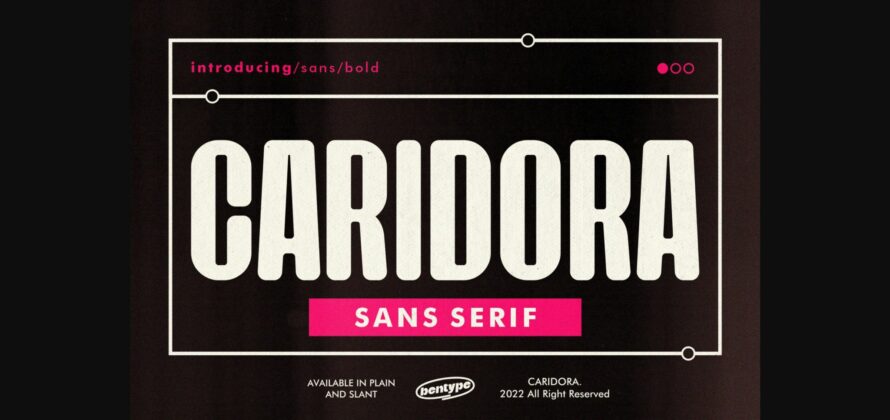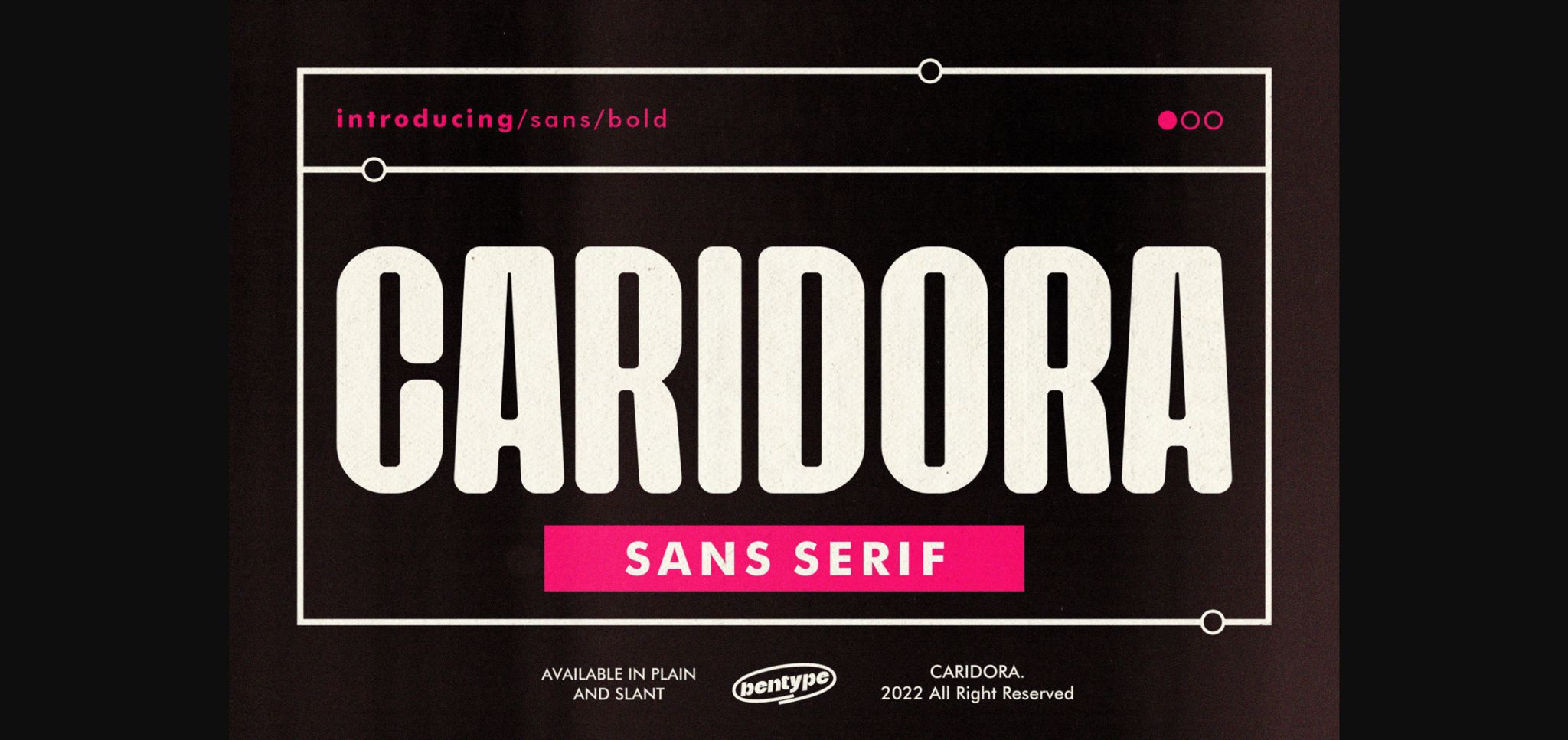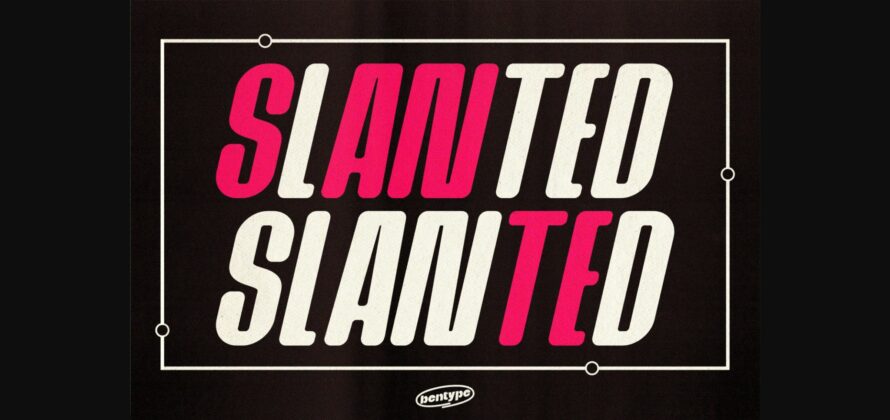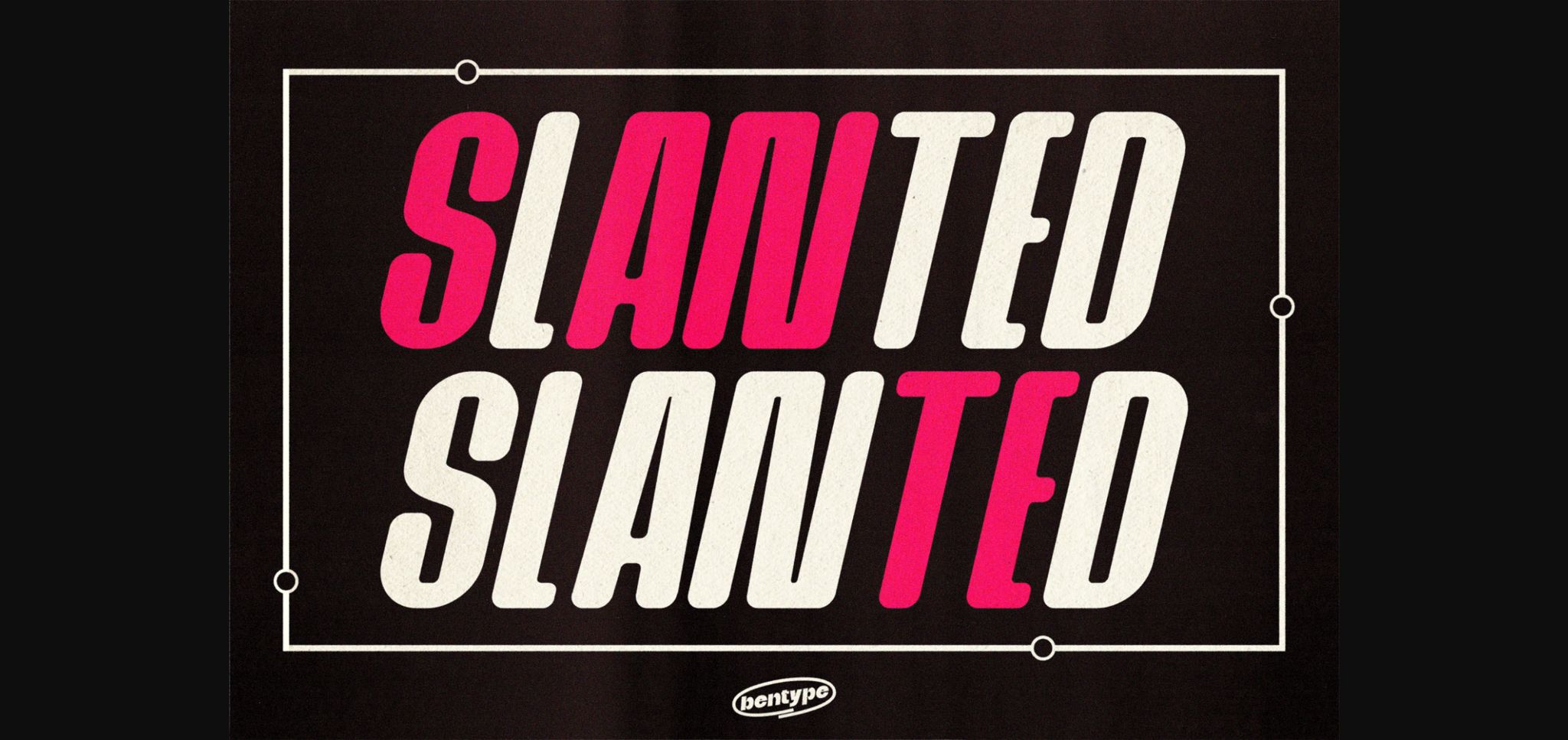
About Caridora Font
Caridora is a cool condensed sans-serif typeface. Incredibly cool and versatile, this font is suitable for a wide spectrum of applications.